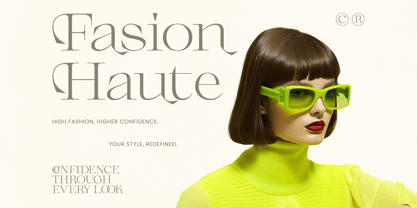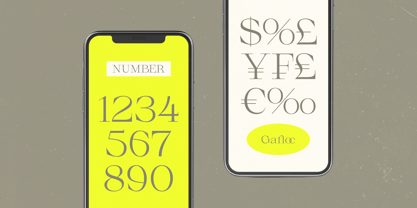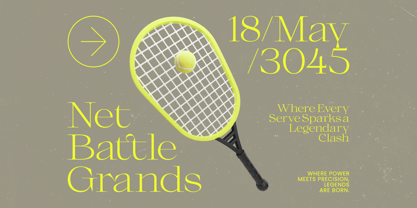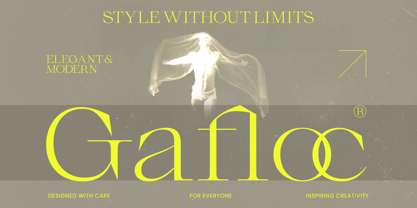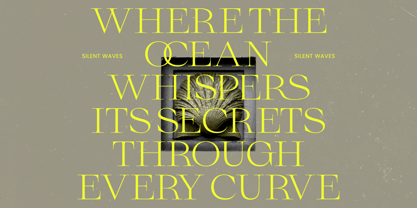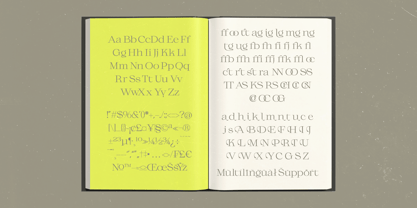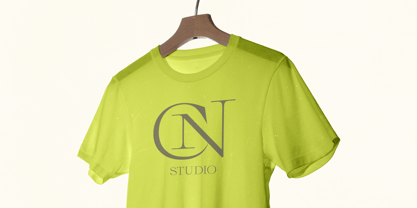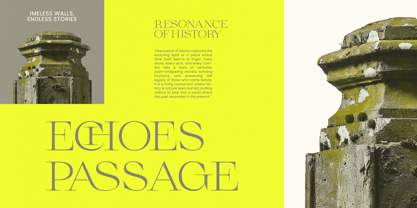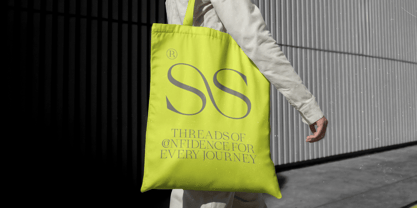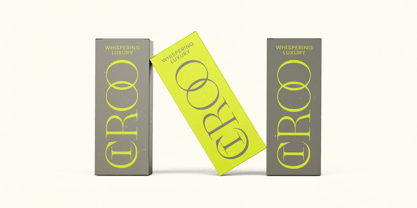
The Gafloc Font Family was designed by Heru Utama Putra and published by Timelesstype Studio. Gafloc contains 2 styles and family package options. More about this family
Gafloc – Thin Serif Display captures the delicate dance between ethereal light and structured elegance, offering a typographic experience that transcends the ordinary. It is a visual whisper that commands attention through its sophisticated restraint and hauntingly beautiful curves.
Drawing inspiration from the rhythmic flow of silent ocean waves and the architectural precision of classical stone carvings, this typeface embodies a timeless serenity. Its razor-thin strokes evoke the feeling of a silk veil catching the wind, blending natural fluidness with a sharp, contemporary edge.
This modern serif display is designed for those seeking luxury typography that prioritizes artistic soul over mere utility. The high-contrast serif forms provide a striking branding impact, making it an essential editorial font for projects that require a touch of mystery and high-end sophistication.